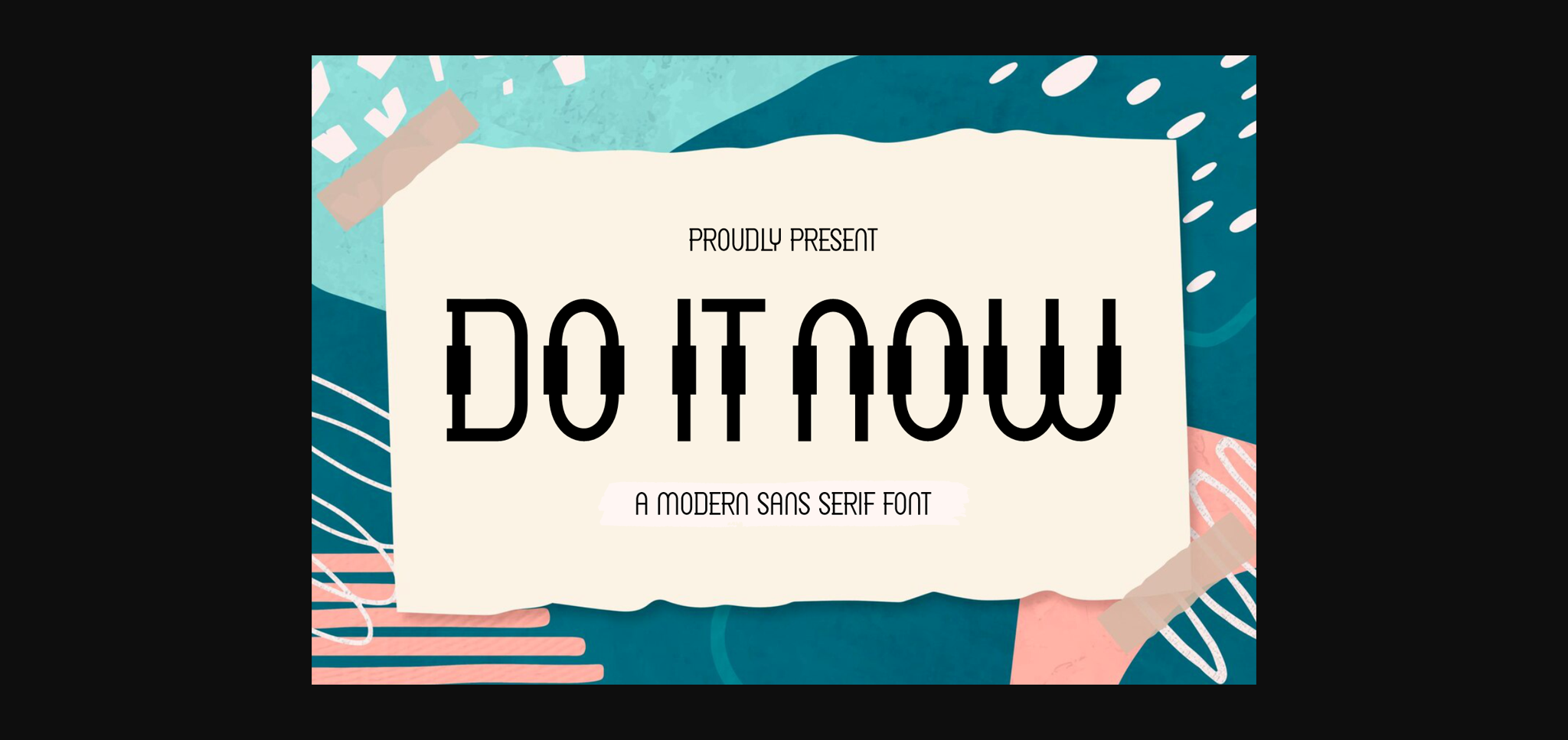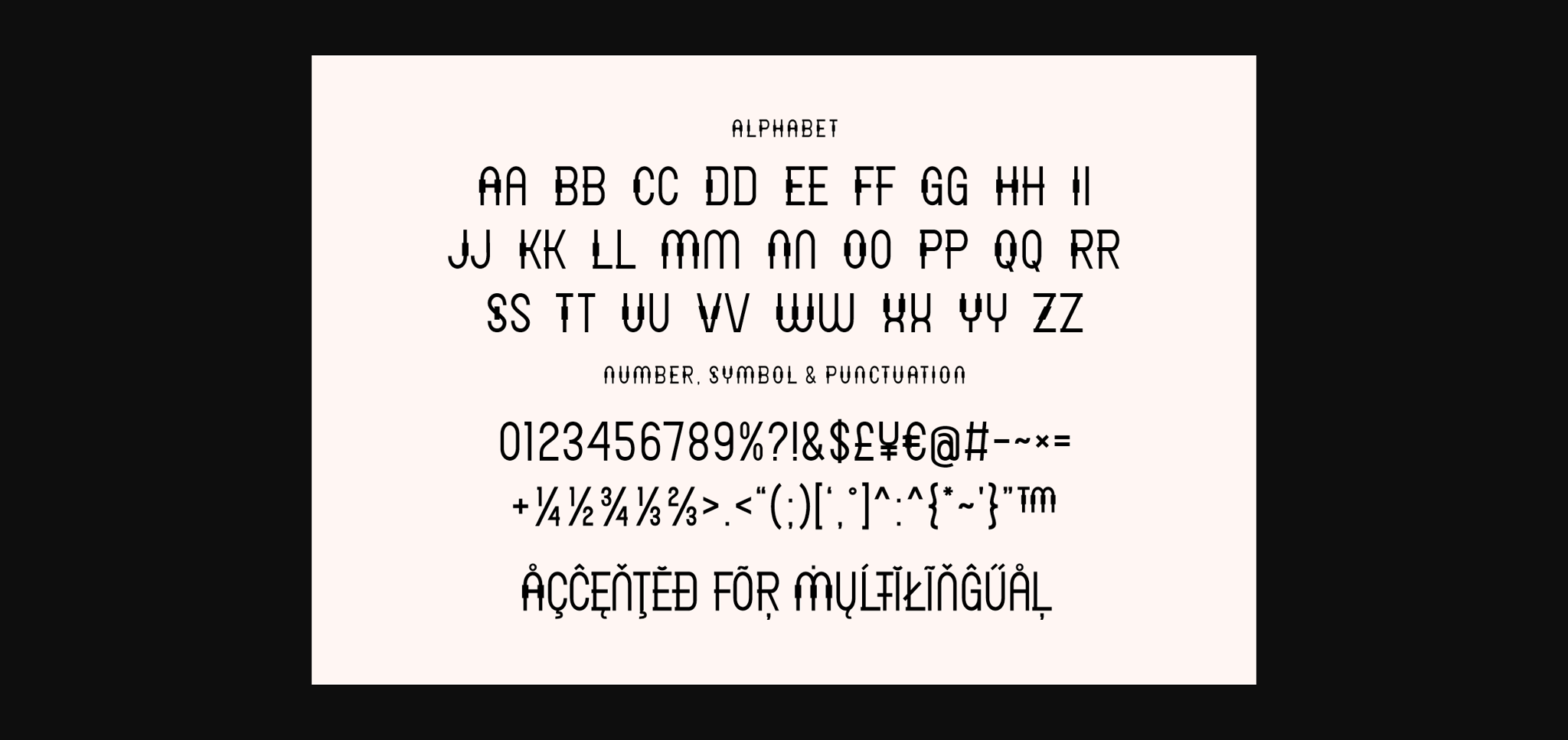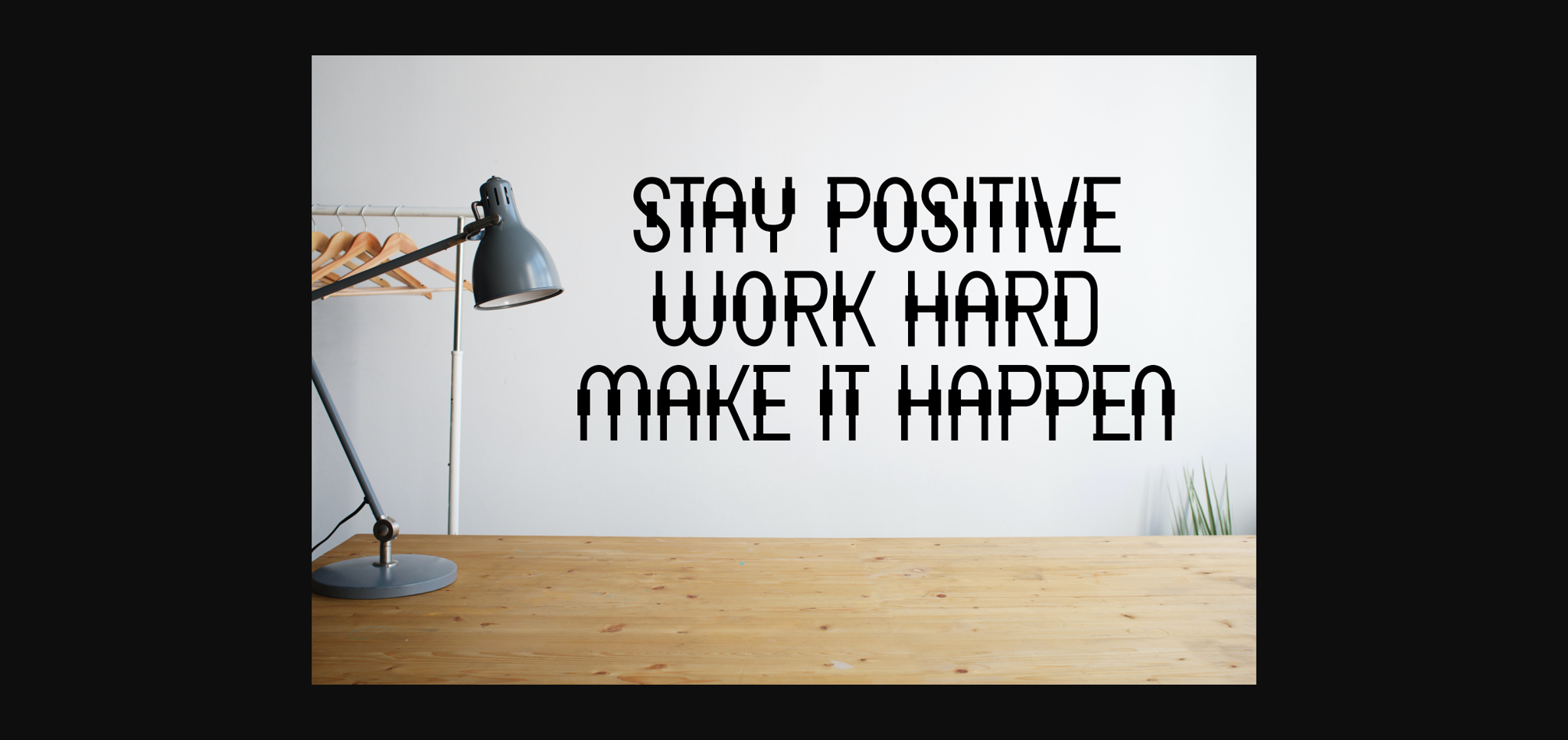
About Do It Now Font
Do It Now is a clean and contemporary sans serif font that brings a modern touch to your designs. With its sleek lines and straightforward style, this font is perfect for making a bold statement. Whether you’re working on a project that needs a no-nonsense approach or aiming for a minimalist aesthetic, Do It Now is the go-to choice. Its simplicity and versatility make it a versatile option for various applications, ensuring your message stands out with a touch of modern flair.